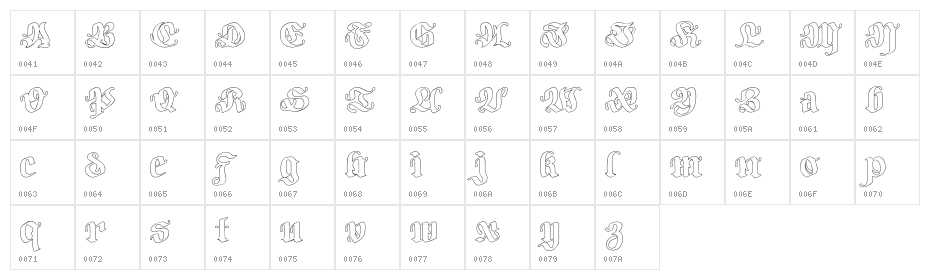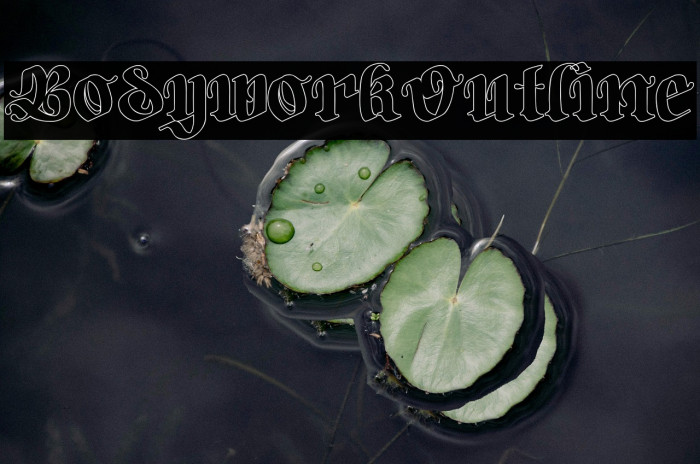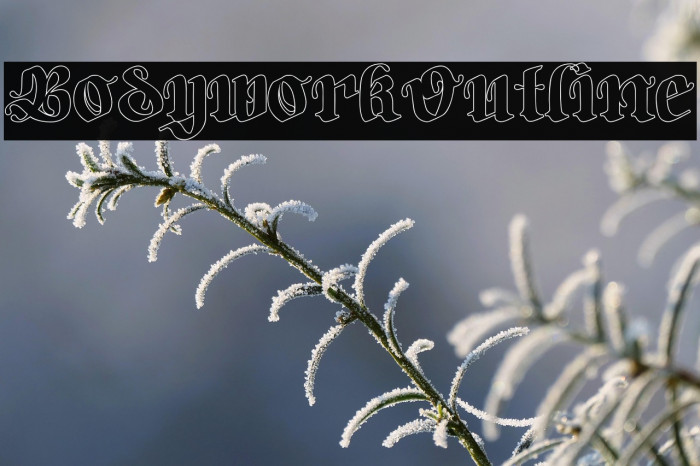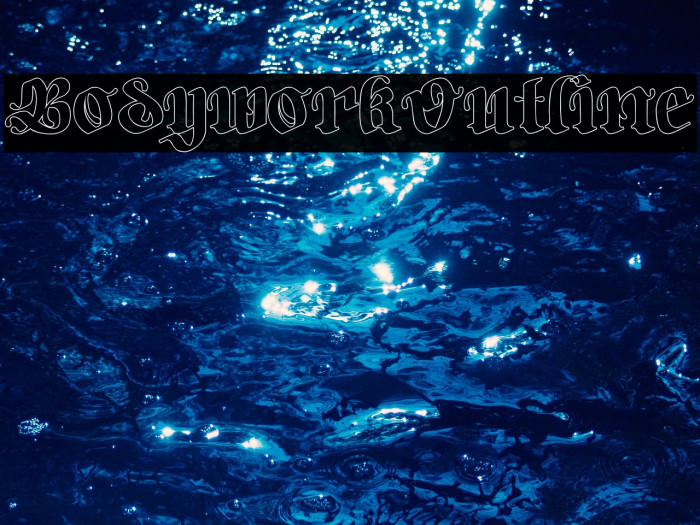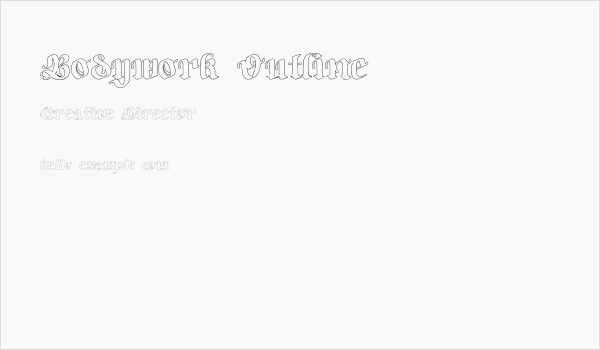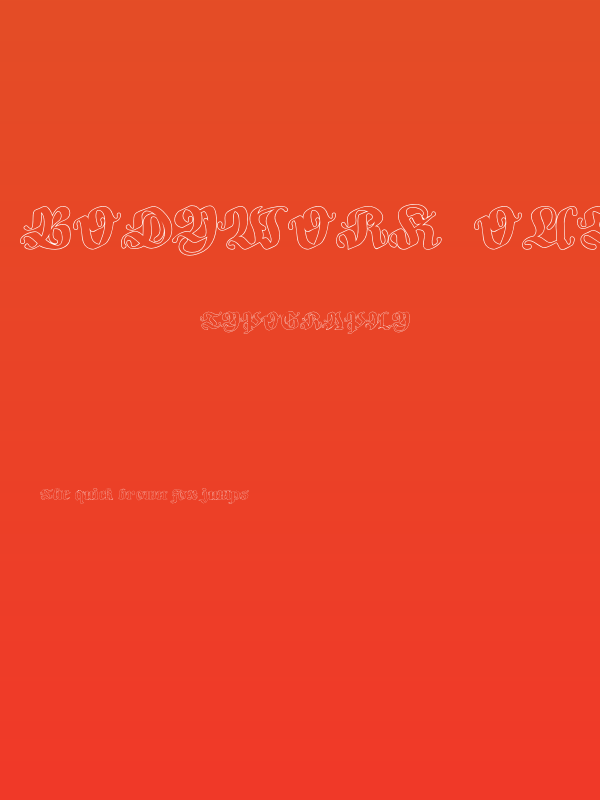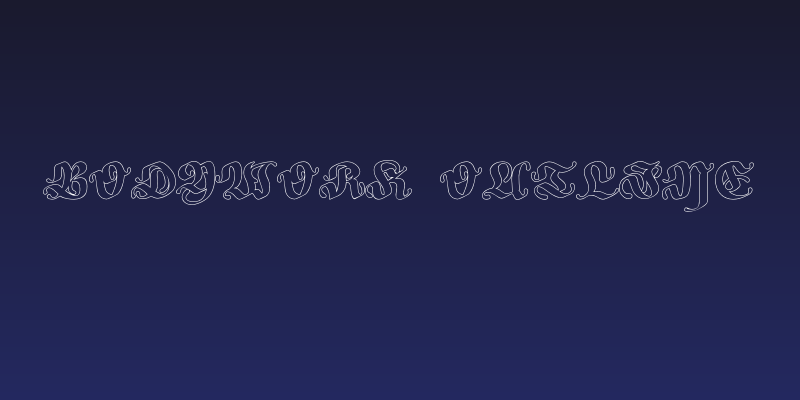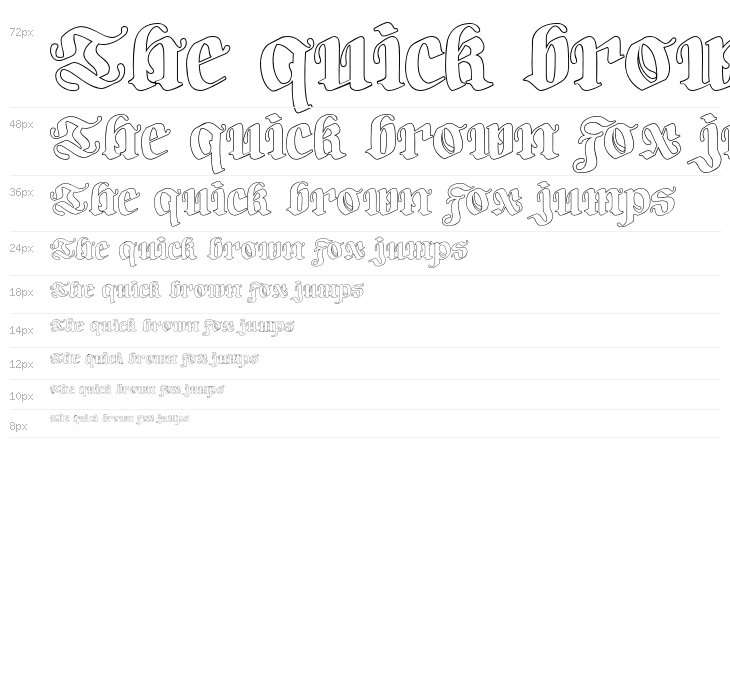
Bodywork-Outline Font
Bodywork-Outline Description
This font features an intricate outline style reminiscent of traditional Blackletter typography. Each character is crafted with a decorative flair, showcasing sharp angles and elaborate curves that give it a distinct medieval appearance. The uppercase letters are bold and commanding, while the lowercase letters maintain the same ornate detailing, ensuring consistency across the typeface. The numbers and special characters follow the same stylistic approach, making this font versatile for various design needs. Its outlined nature adds a modern twist to the classic Blackletter style, making it suitable for both traditional and contemporary projects.
| Proposed Projects | Ideal for projects requiring a historical or gothic aesthetic, such as book covers, posters, and branding for vintage-themed events. |